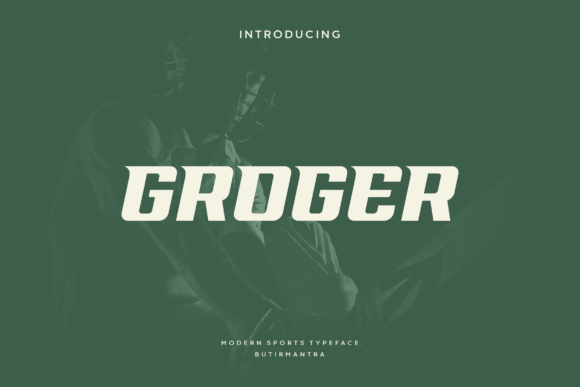
**Introducing Groger Font: The Epitome of Speed, Energy, and Power**
In the realm of fonts, Groger Font emerges as a dynamic force, capturing the essence of speed, energy, and power. This modern sport font, meticulously crafted by garismantra, electrifies your designs with its all-caps design, reminiscent of roaring machines and adrenaline-fueled races.
Groger Font's sharp corners and solid shape, accentuated by pointy edges, exude strength and determination. It's a font that demands attention, commanding presence in logos, headlines, posters, and movie titles. Its versatility extends to magazines and a myriad of design projects, adding a touch of boldness and impact to your creative endeavors.
**Groger Font: Unleash Your Designs' Inner Spirit**
With Groger Font, your designs transcend the ordinary, breaking free from the mundane and embracing a world of energy and excitement. This font is not merely a collection of characters; it's a gateway to expressing your passion, projecting your ideas with unwavering confidence.
Groger Font's powerful aura captivates your audience, drawing them into your designs with irresistible force. It's a font that ignites emotions, making your message unforgettable and leaving a lasting impression. Whether you're designing for sports themes, creating captivating logos, or crafting impactful headlines, Groger Font amplifies your message, ensuring it resonates with your audience.
**Groger Font: The Perfect Font for College Sweatshirts**
For college sweatshirts, Groger Font reigns supreme. Its sporty vibe perfectly complements the youthful energy and athletic spirit of campus life. Imagine your university's mascot emblazoned across the chest of a sweatshirt, rendered in the bold and dynamic Groger Font. It's a statement piece that embodies school pride, igniting a sense of unity and belonging among students.
Groger Font's sharp edges and solid shape create a visually striking contrast against the fabric of the sweatshirt, ensuring your design stands out from the crowd. It's a font that captures the essence of campus life, evoking memories of cheering crowds, hard-fought victories, and the camaraderie of teammates.
**Groger Font: A Font That Inspires and Empowers**
Groger Font is more than just a collection of letters; it's an expression of your individuality, a reflection of your unique style. It's a font that empowers you to communicate with impact, to leave an indelible mark on the world through your designs.
With Groger Font, you have the power to create designs that resonate, designs that captivate and inspire. It's a font that fuels your creativity, propelling your designs to new heights of excellence. Embrace the energy and power of Groger Font, and watch as your designs transform into masterpieces that leave a lasting legacy.